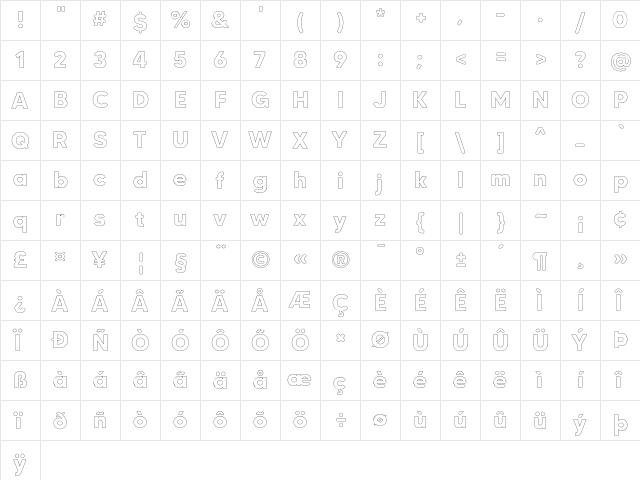
MADE Tommy Soft Outline Bold
Design Context for MADE Tommy Soft Outline Typeface
MADE Tommy Soft Outline brings ornamental detail and strong personality to headlines and identities, where visual impact matters more than quiet functionality. The heavy weight commands attention and anchors typographic hierarchies.
Font Pairing: Pair with a clean neutral sans-serif for body copy to let MADE Tommy Soft Outline's character lead without overwhelming the composition.
Pro Tip: Use MADE Tommy Soft Outline exclusively at display sizes — it was designed to be seen, not read at length. Let a neutral companion handle body copy.